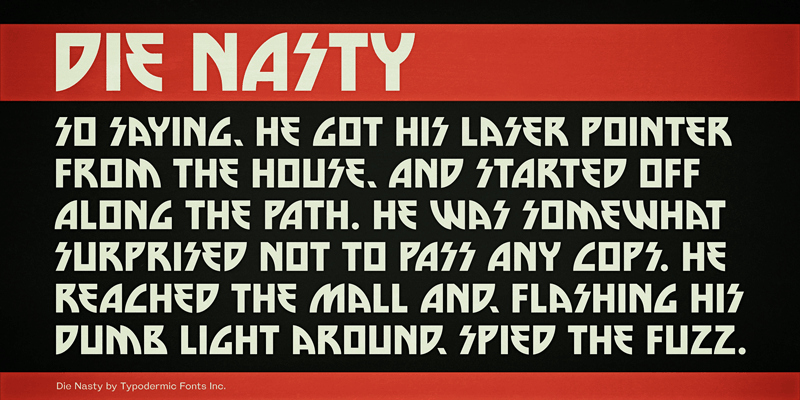
Die Nasty is a glamorous, Arts & Crafts headline font with a hard rock heritage. This font includes a license that allows free commercial use: sometimes referred to as a desktop license. This allows you to install the font on a computer and use it to create posters, web graphics, game graphics, t-shirts, videos, signs, logos and more. Read the license agreement for details. If you'd like to embed this font in an app, ebook, on the web or anything that's not covered by the desktop license agreement, visit the link below. You'll find distributors who offer different types of licenses or you can contact me for help. http://typodermicfonts.com/die-nasty/ |